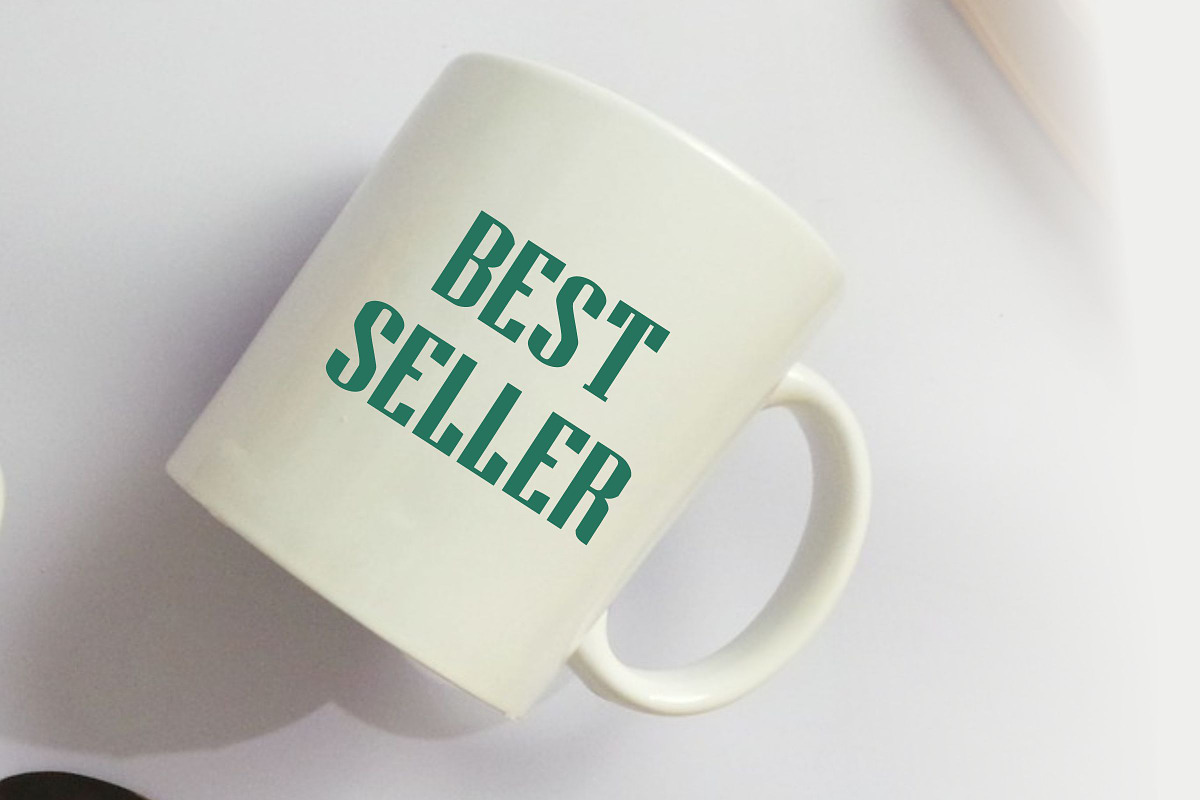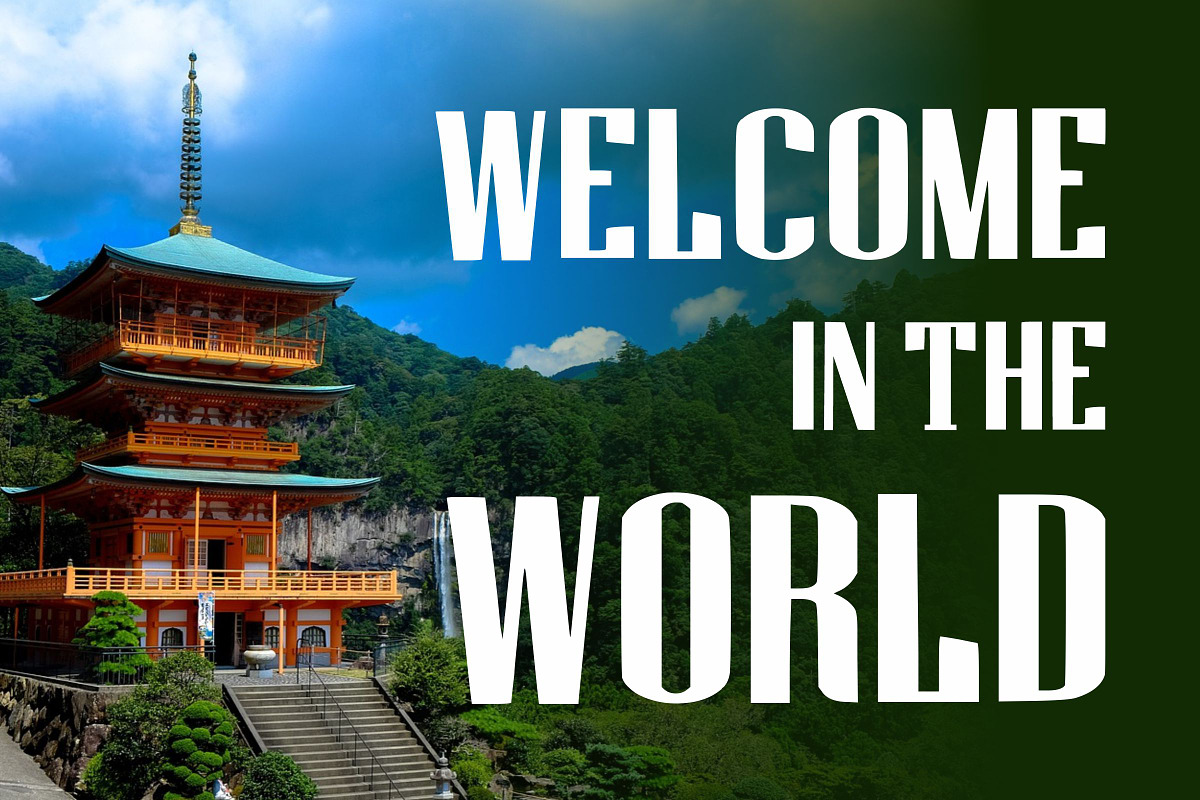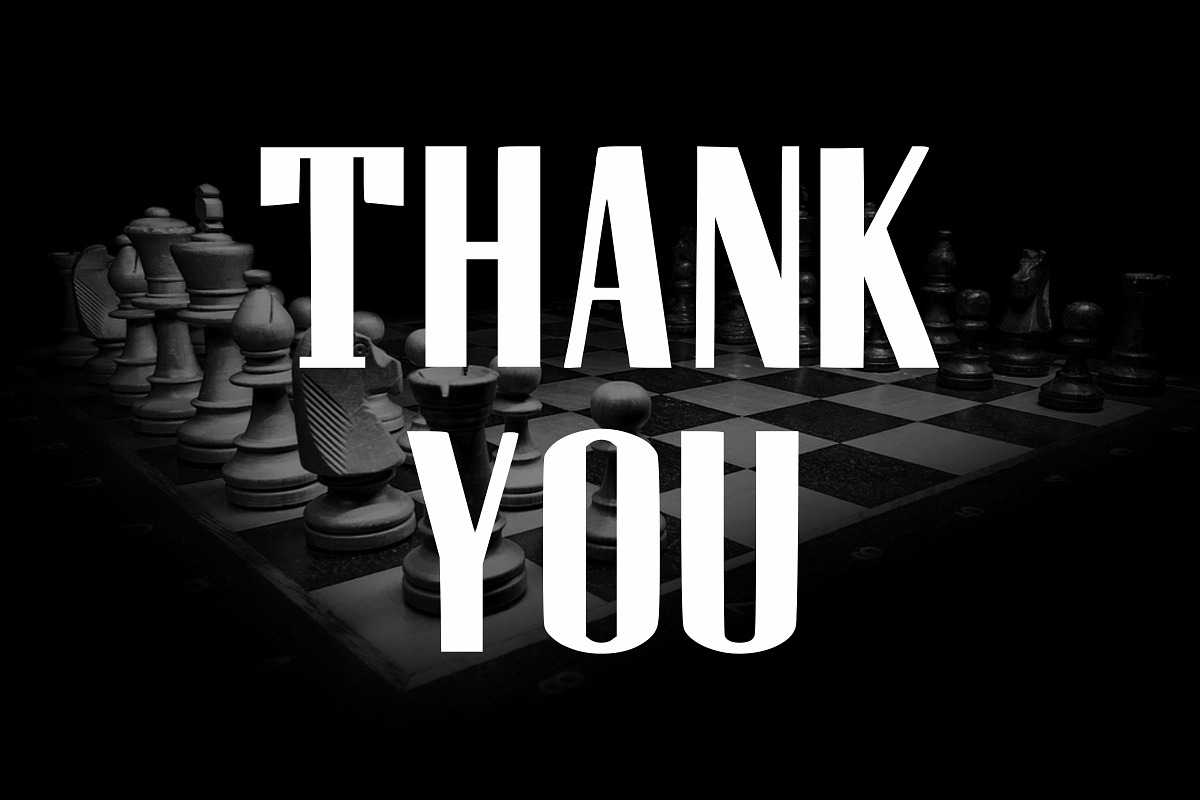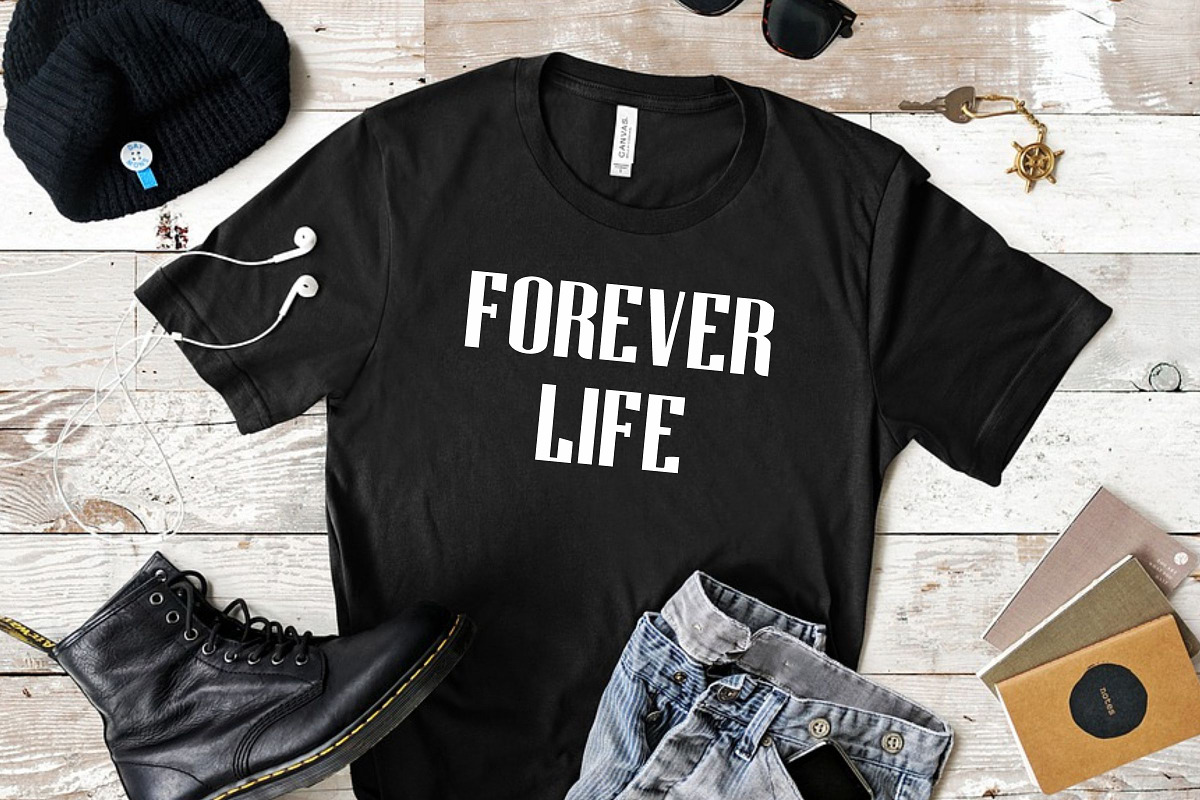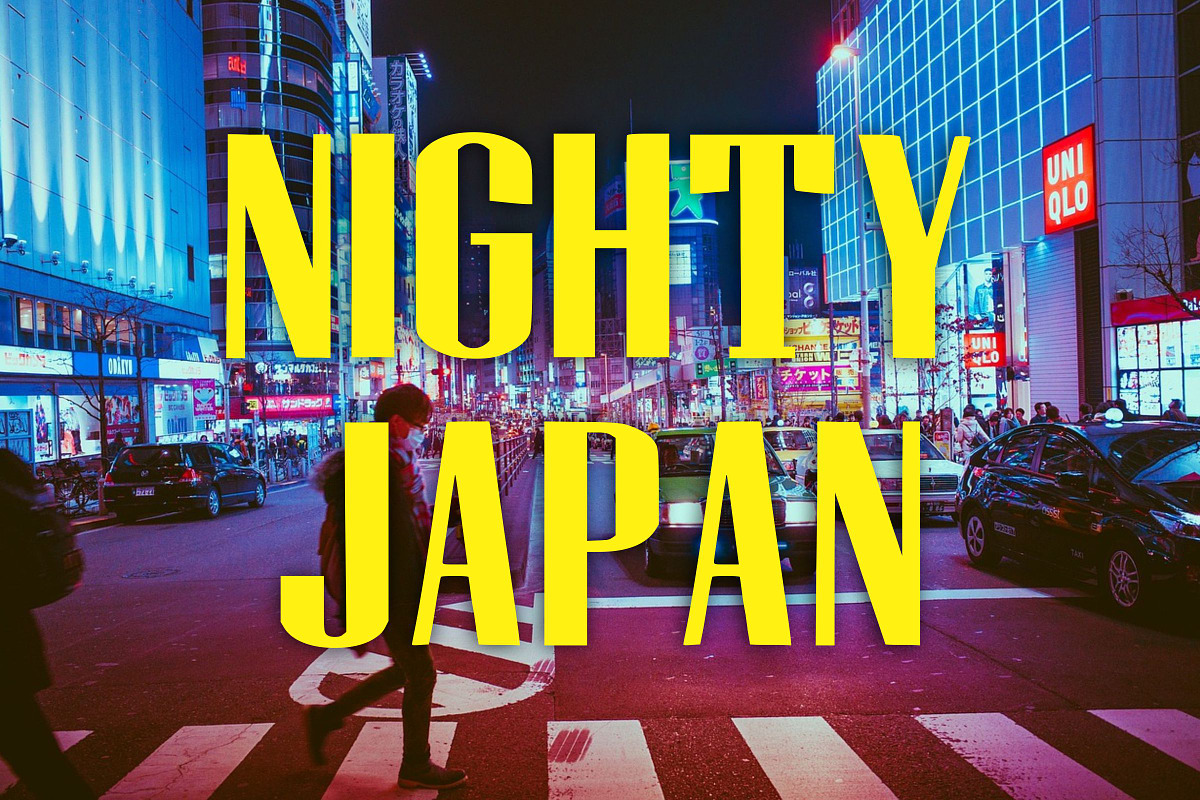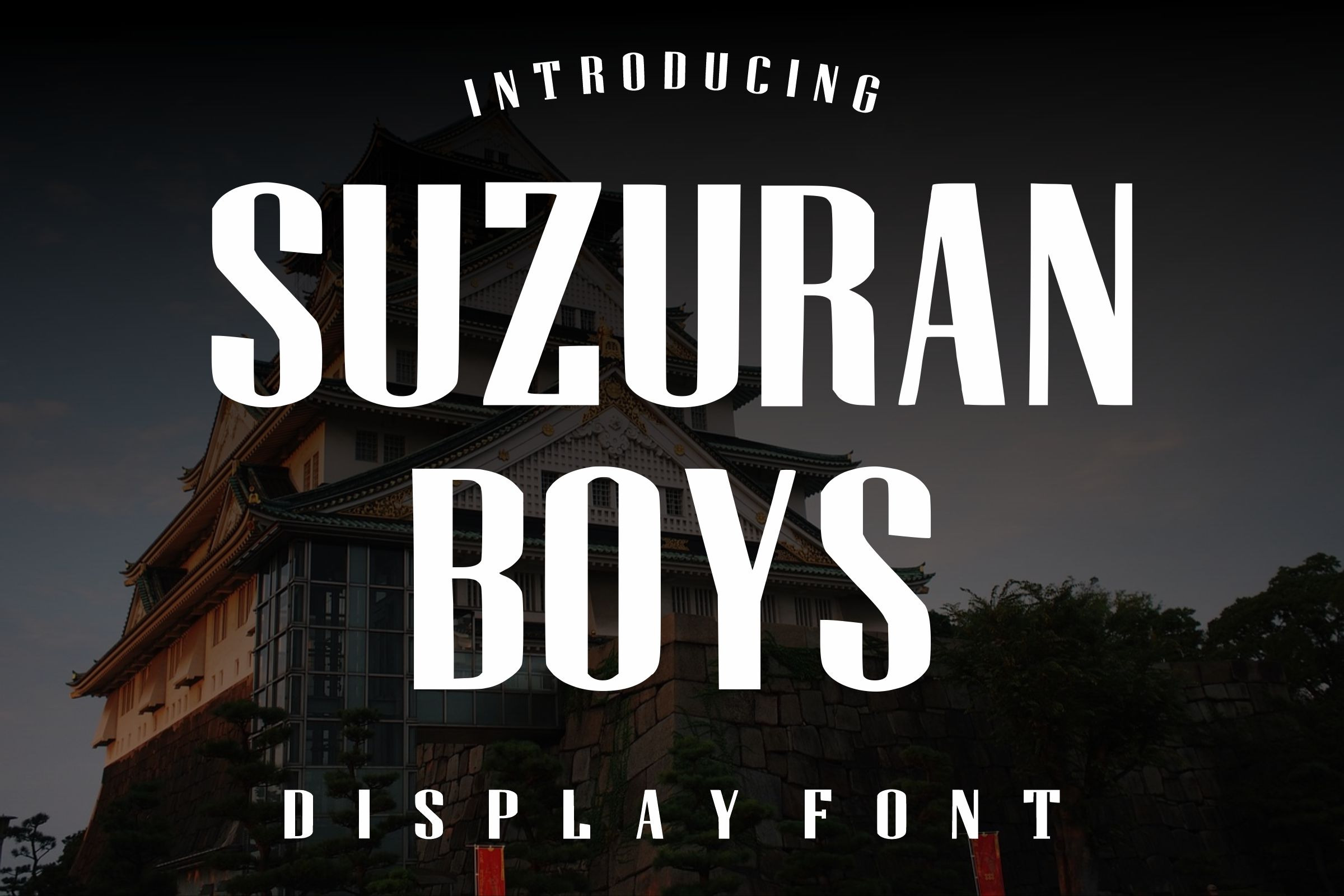
Suzuran Boys - Tall Condensed Font
Introducing Suzuran Boys, a bold condensed display font crafted for designers who need strong visual impact.
Featuring tall proportions, clean geometric shapes, and modern styling, Suzuran Boys is ideal for eye-catching typography that stands out in both print and digital media. Whether you're creating sports branding, apparel graphics, posters, logos, packaging, social media content, YouTube thumbnails, or editorial headlines, this font brings confidence and energy to every design.
Its minimalist structure makes it versatile enough for modern branding while maintaining a bold character suitable for high-impact projects.
Uppercase Letters
Bold Condensed Style
Clean & Modern Look
High Readability
Strong Display Appearance
Perfect for Large Headlines